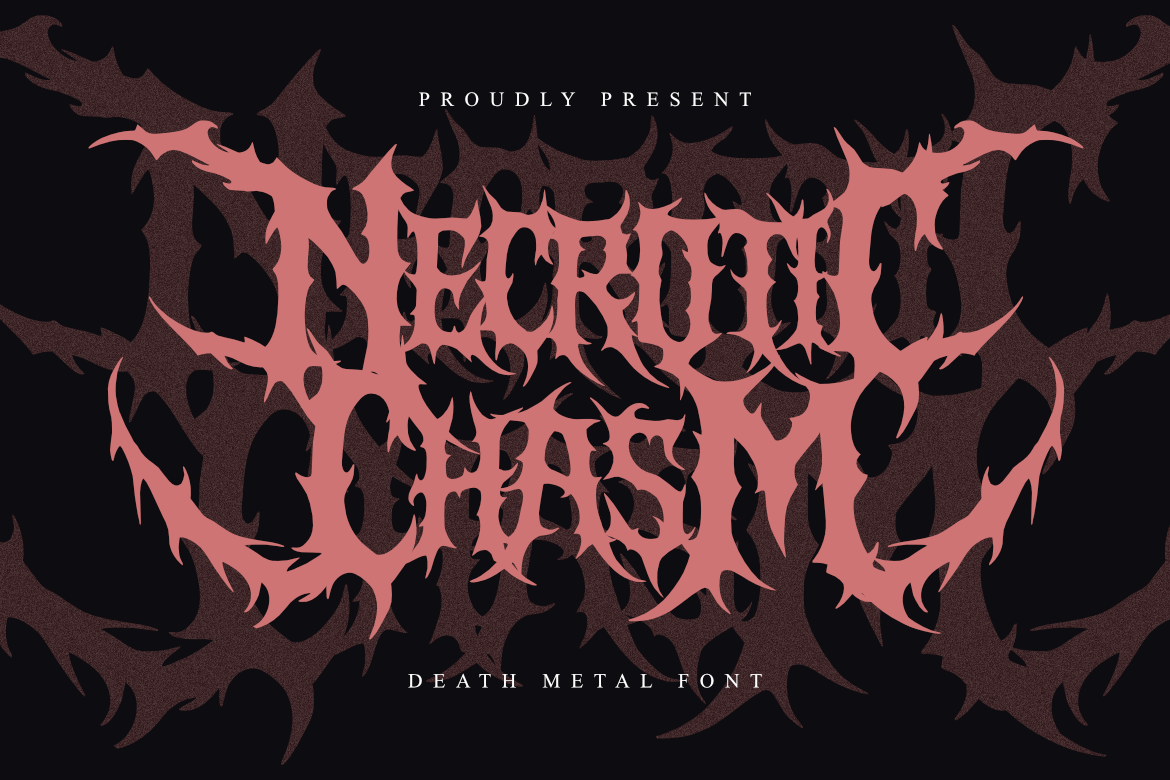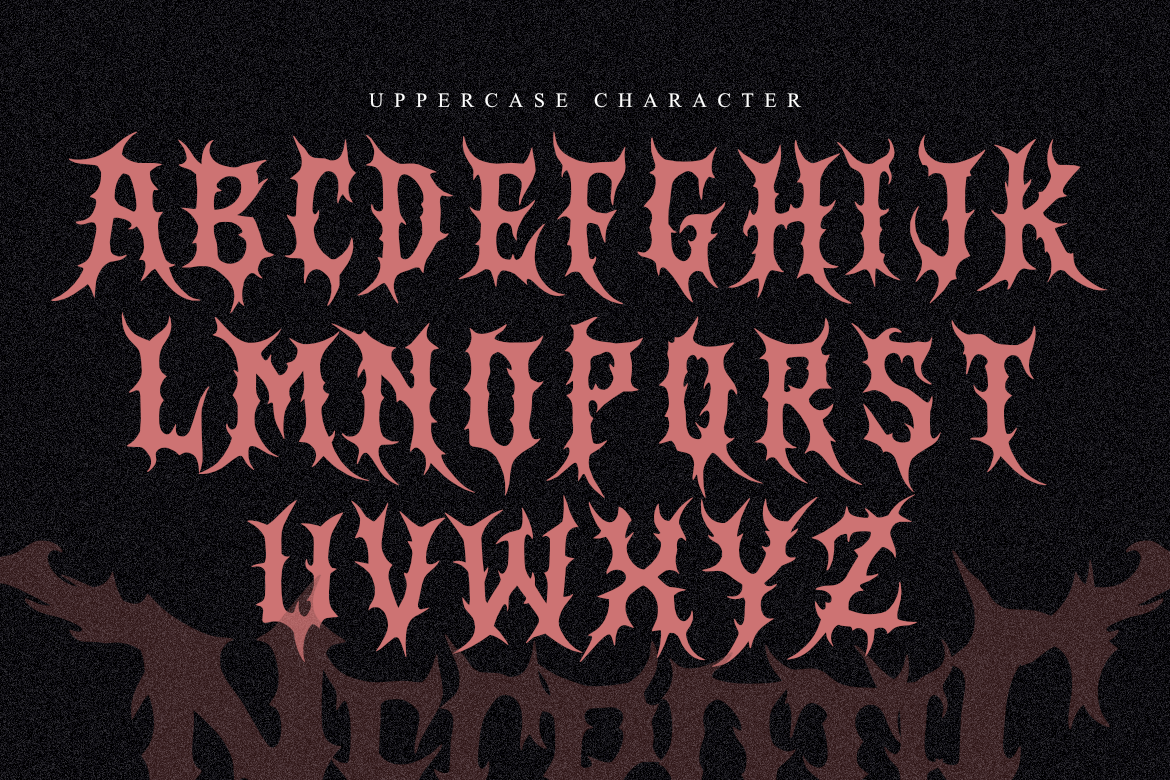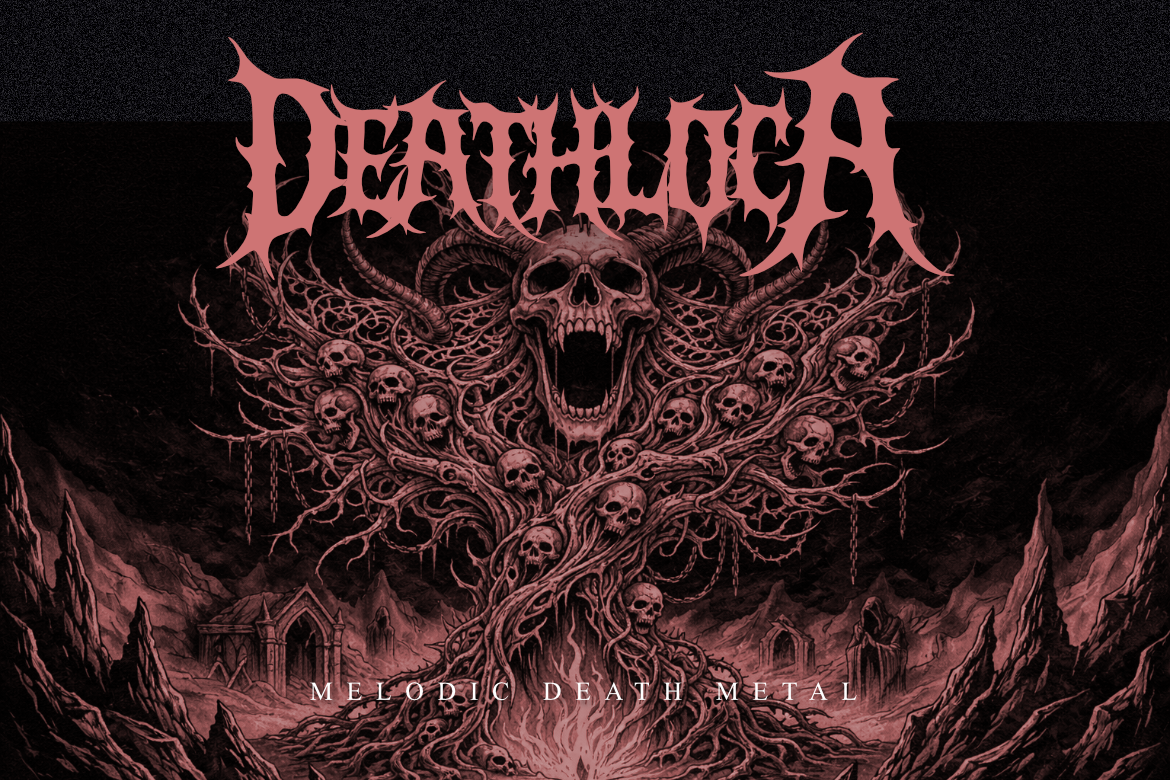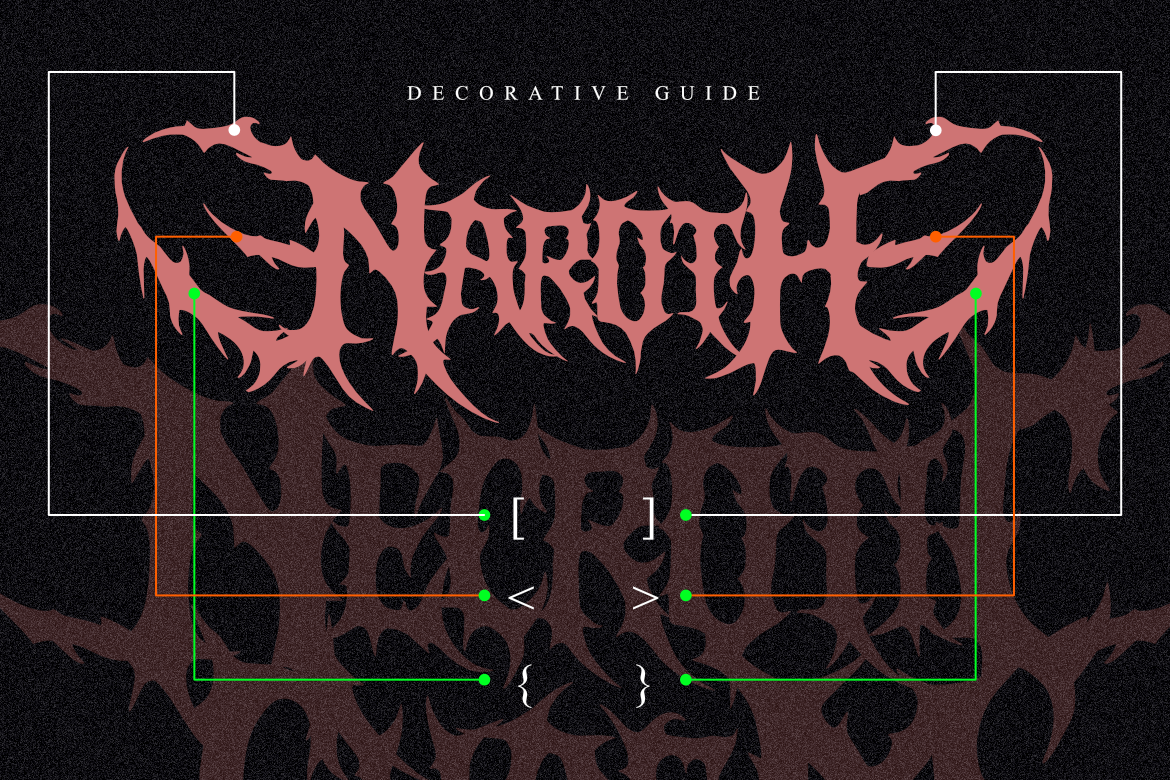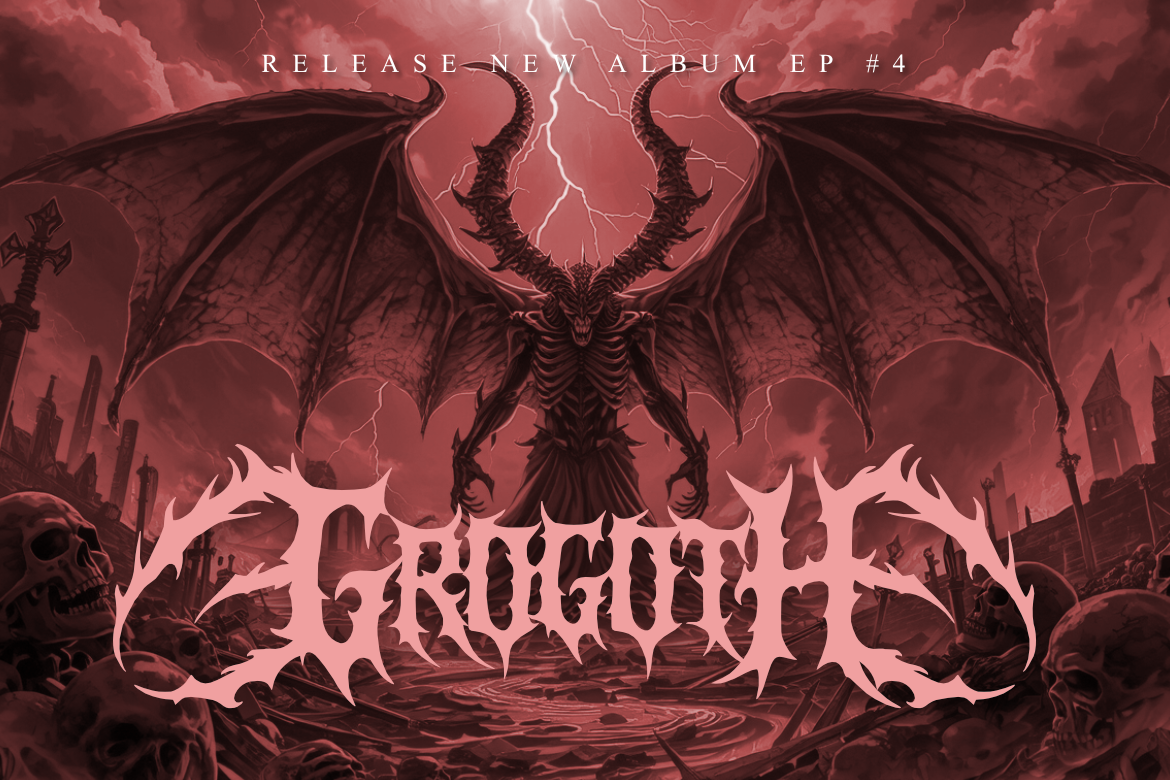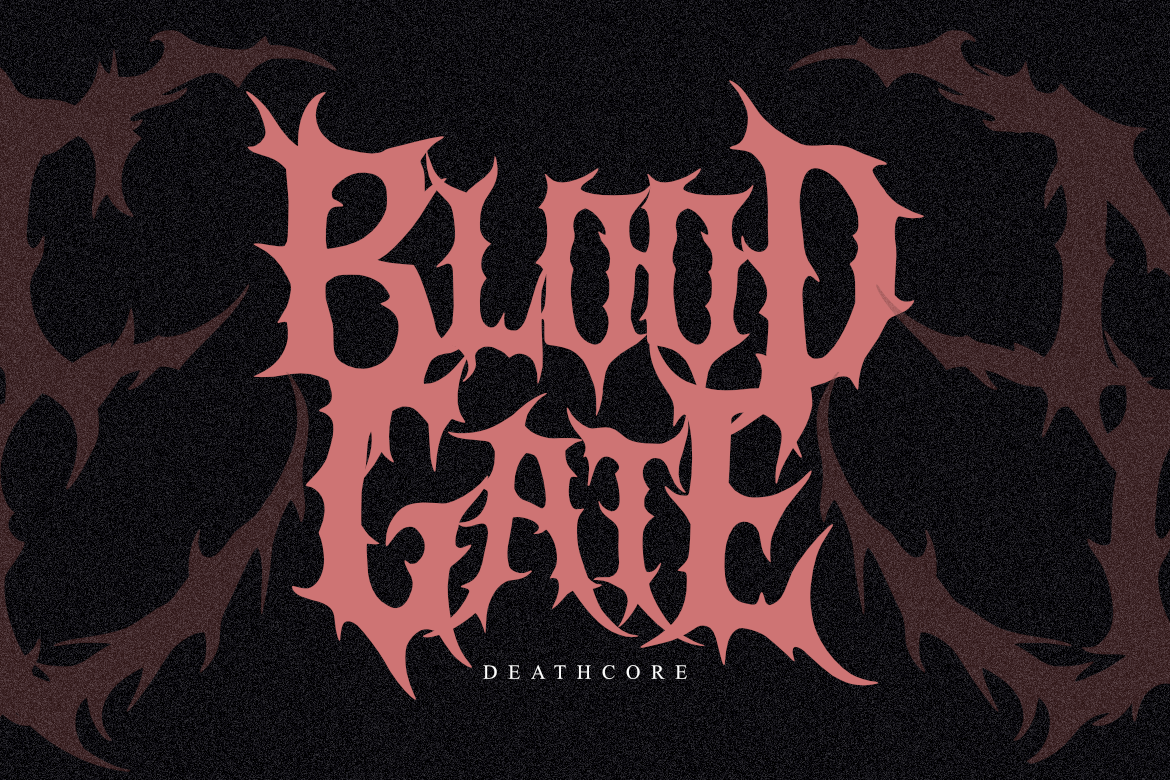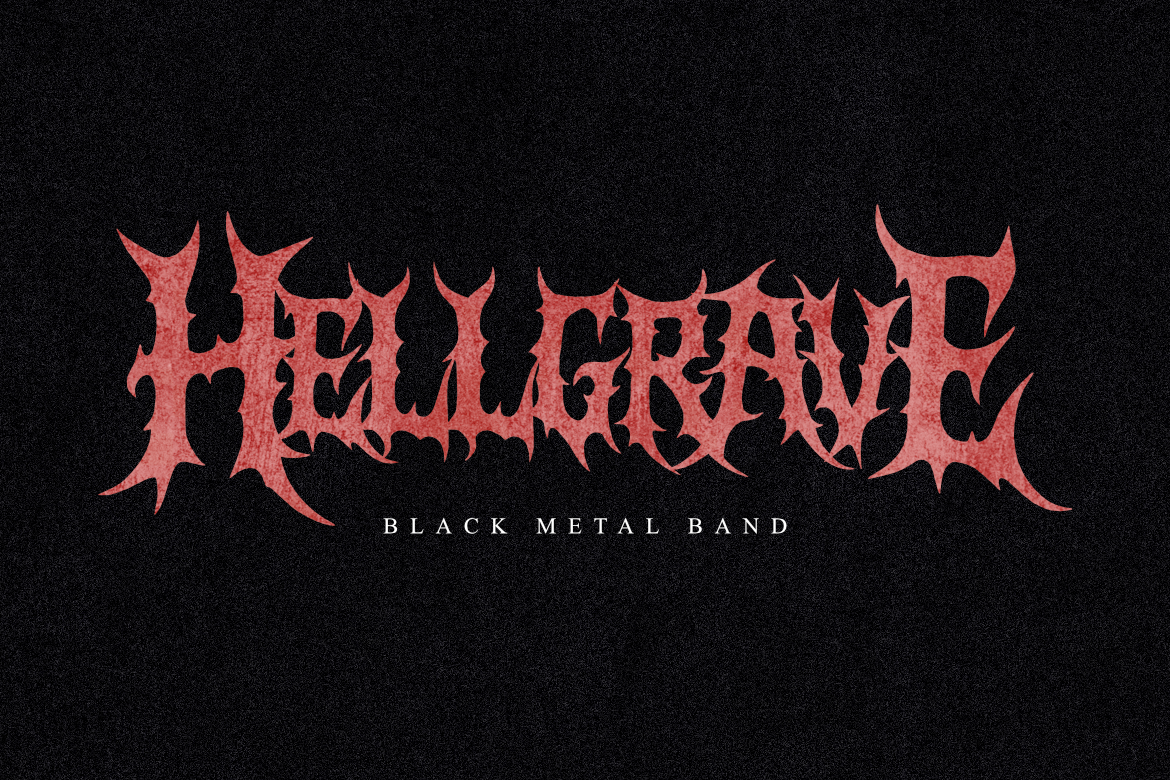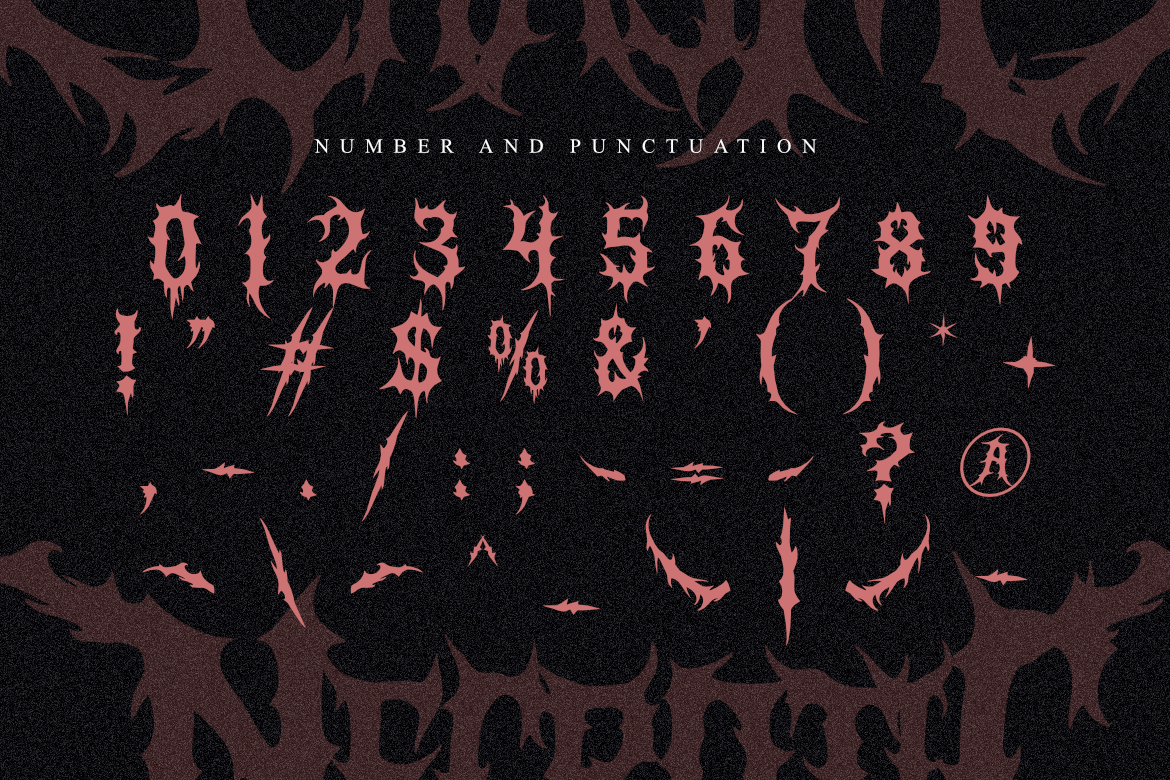
Necrotic Chasm - Aggressive Death Metal Font
Aggresive Death Metal Font for Death Metal Logo
Necrotic Chasm is a brutal display font that embodies the dark, chaotic energy of the underground metal scene. Designed with sharp, thorn-like extensions and intricate organic shapes, this font is a powerhouse for extreme visual projects.
It is highly recommended for death metal band logos, black metal aesthetics, horror movie titles, and edgy merchandise. Necrotic Chasm ensures your designs have a terrifyingly professional and aggressive edge.
- Brutal and sharp death metal aesthetic.
- Detailed organic “thorn” letterforms.
- Perfect for high-impact logos and headlines.